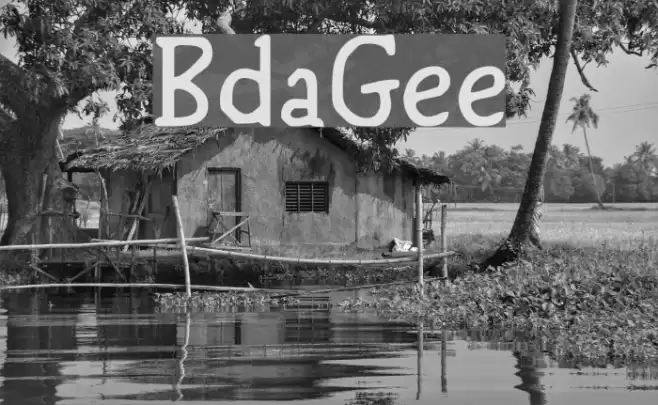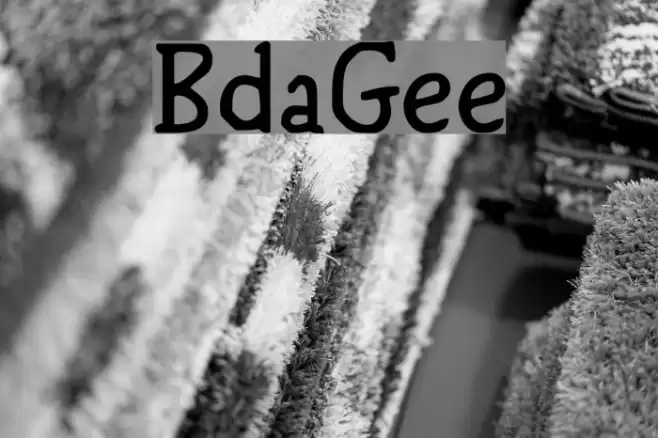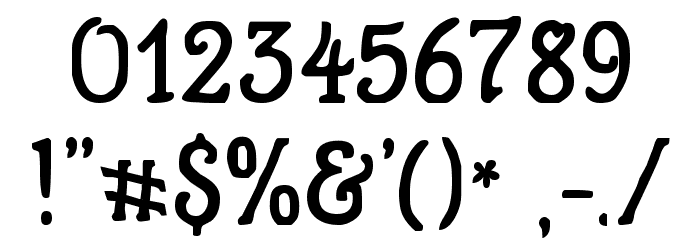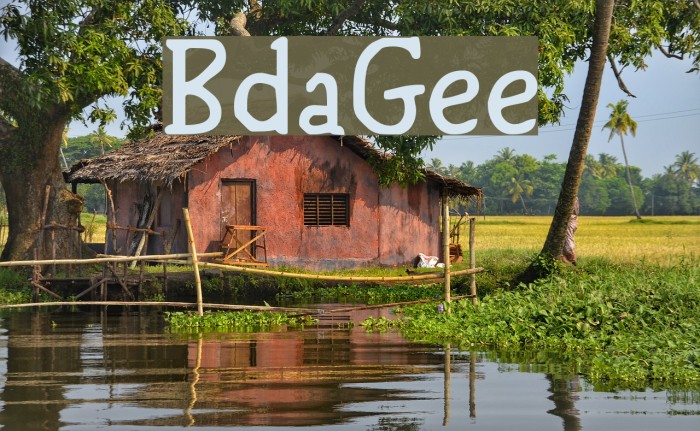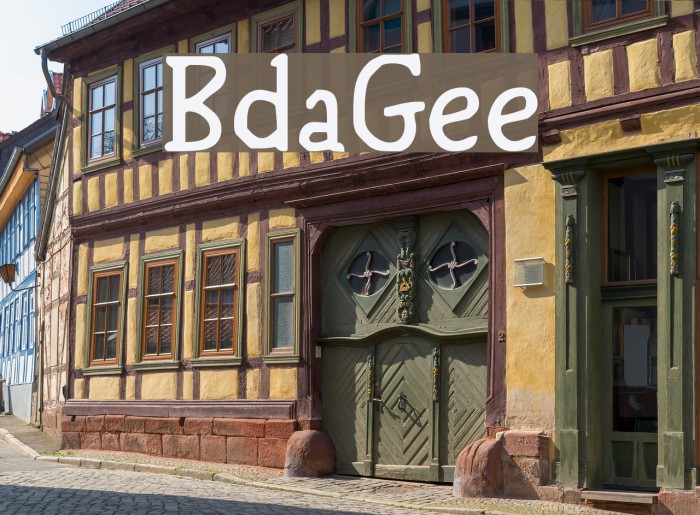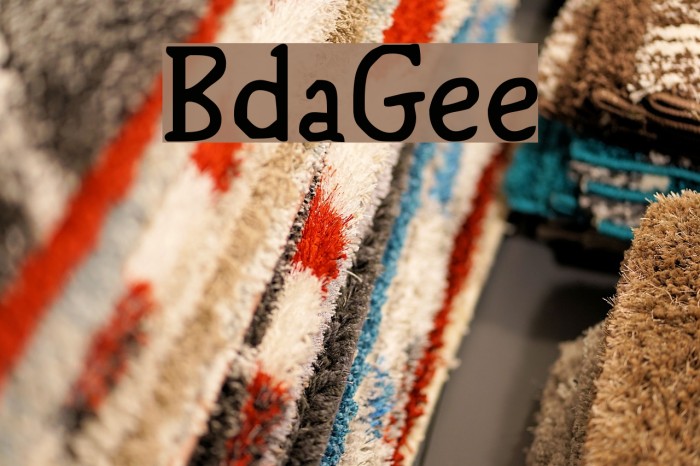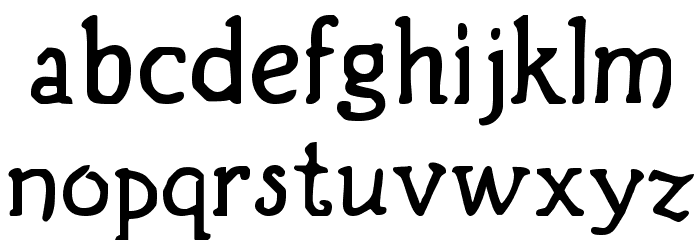
BirthdayGreetz Font
BirthdayGreetz Description
This font features a playful and whimsical design, characterized by its uneven and slightly irregular strokes that give it a hand-drawn appearance. The uppercase letters are bold and prominent, while the lowercase letters maintain a consistent style with a touch of quirkiness. The numbers and special characters follow the same playful theme, making the font suitable for creative and informal projects. Its unique style is perfect for adding a personal touch to any design, making it stand out with its charming and friendly appearance.
A playful, hand-drawn style font with irregular strokes from Typewriter fonts.
- Proposed Projects: Ideal for greeting cards, children's books, playful branding, and creative invitations.
- Use Case: Headlines, Logos, Invitations